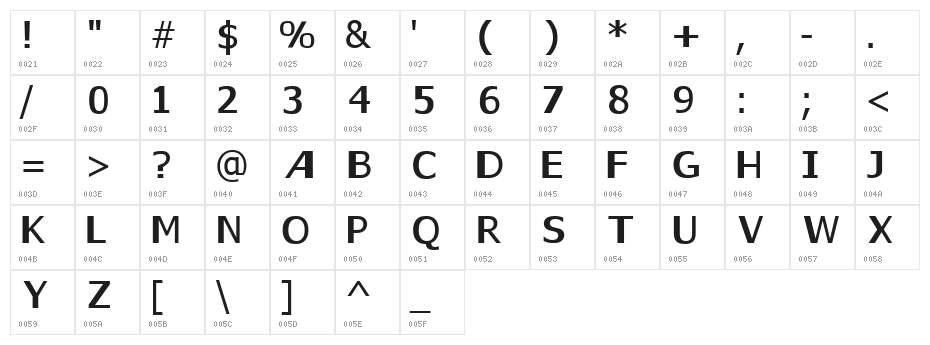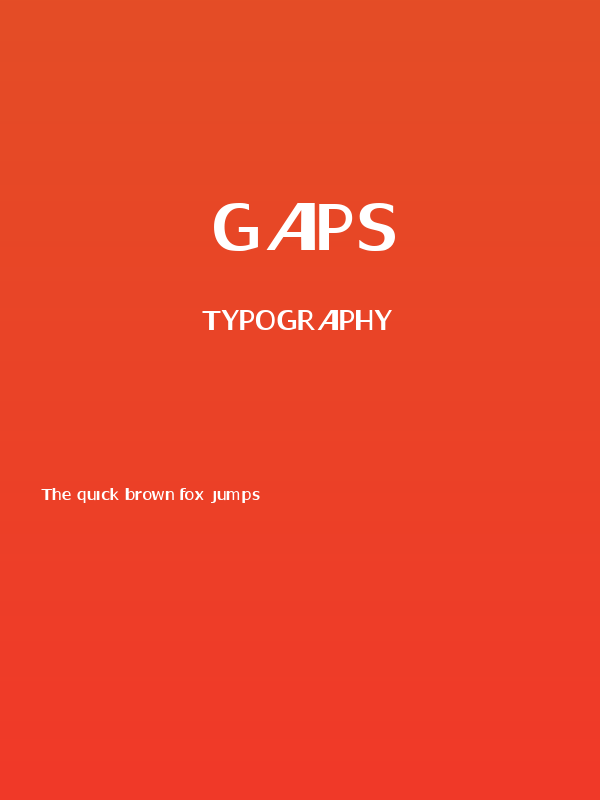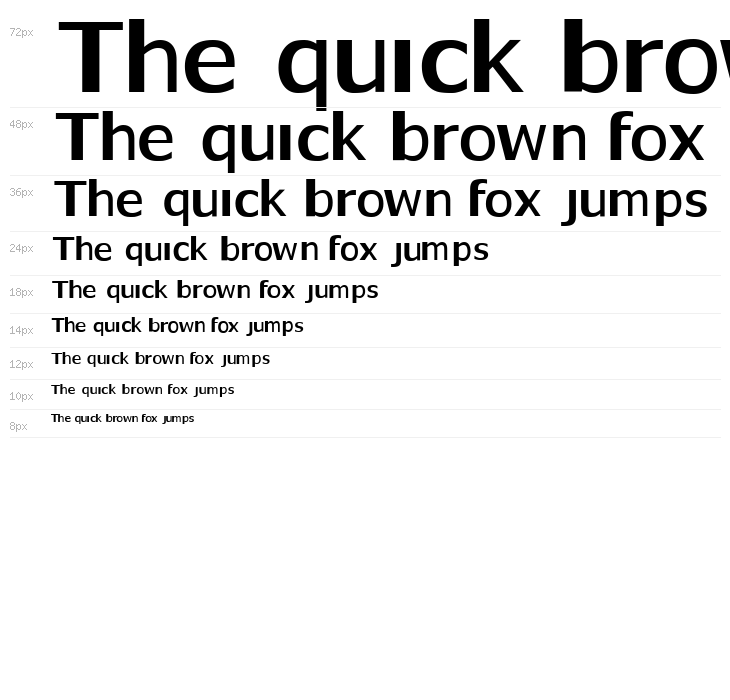
Gaps Font
Gaps Description
This font features a bold and modern sans-serif style with clean lines and a strong presence. The uppercase letters are slightly condensed, giving them a compact and powerful look, while the lowercase letters maintain a consistent height with rounded edges that add a touch of softness. The numerals are clear and legible, making them suitable for various applications. The special characters are well-defined, ensuring versatility in design projects. The overall appearance is sleek and professional, making it ideal for contemporary branding and digital media.
| Width | Condensed |
| Use Case | Headlines, Logos, Digital Media |
| Proposed Projects | Ideal for branding, digital media, advertising, and editorial design. |